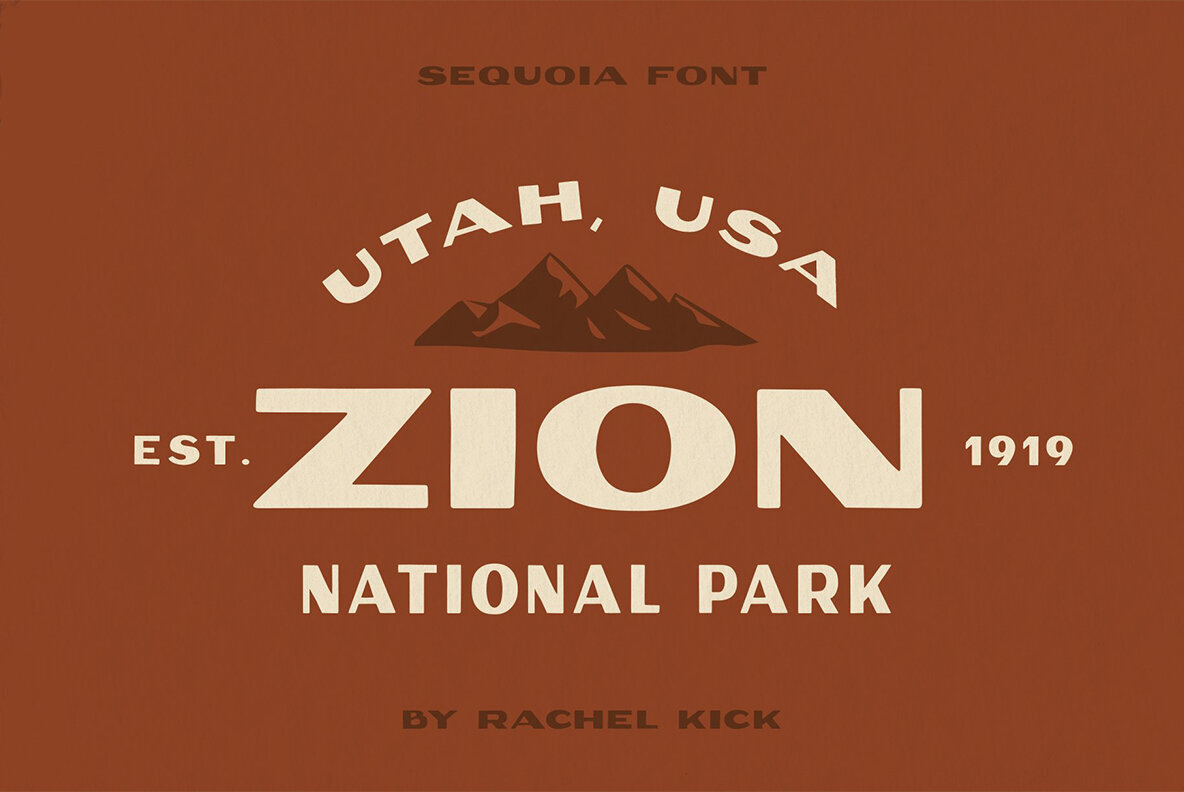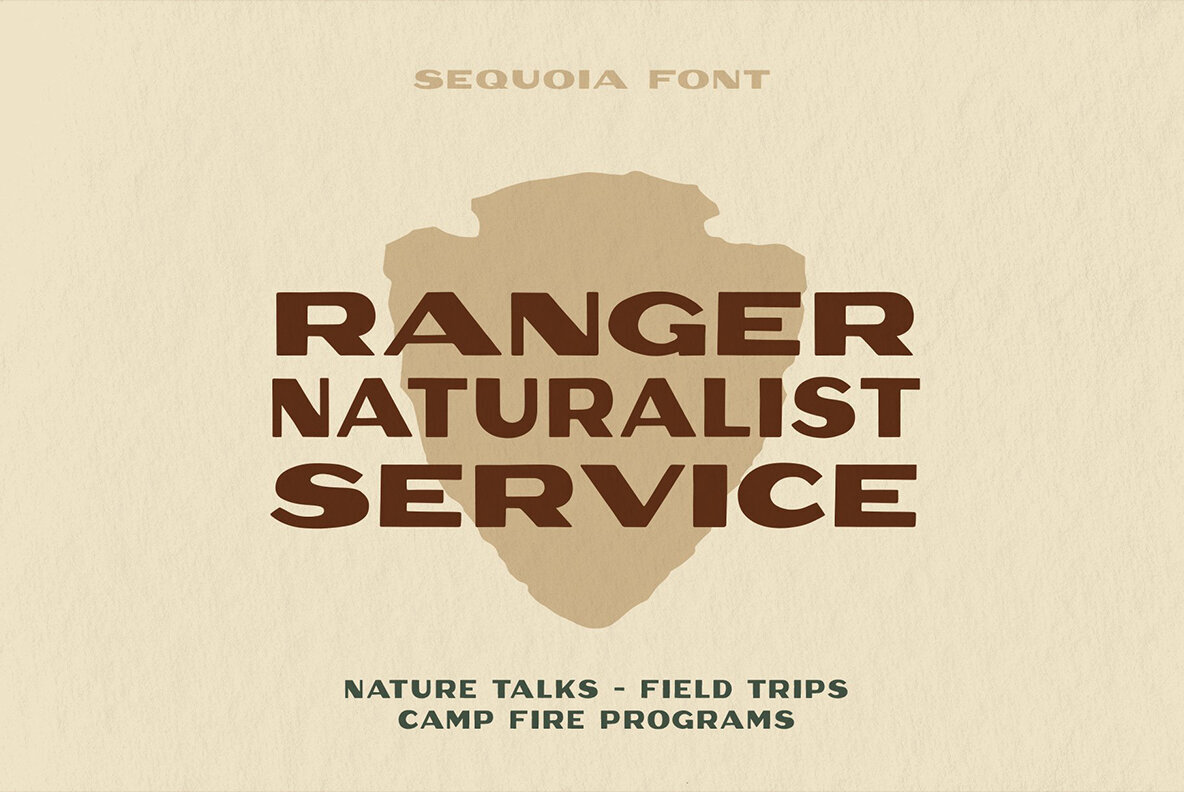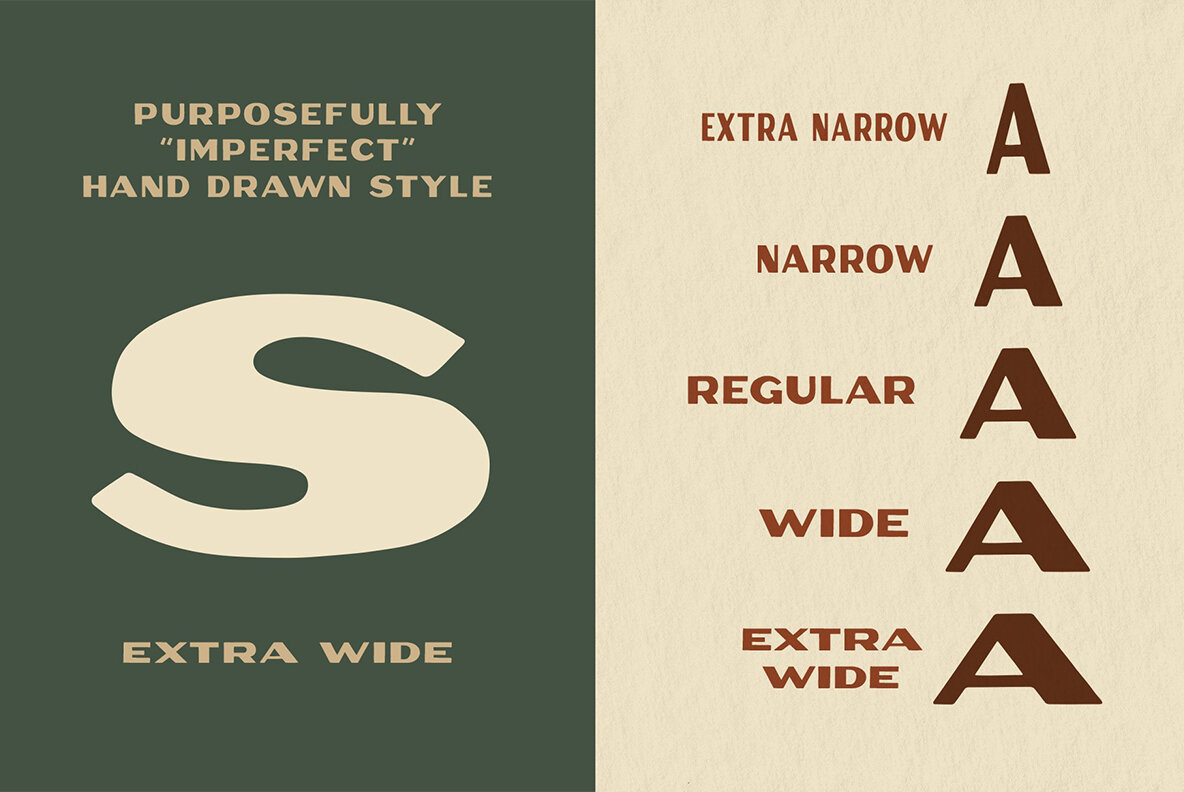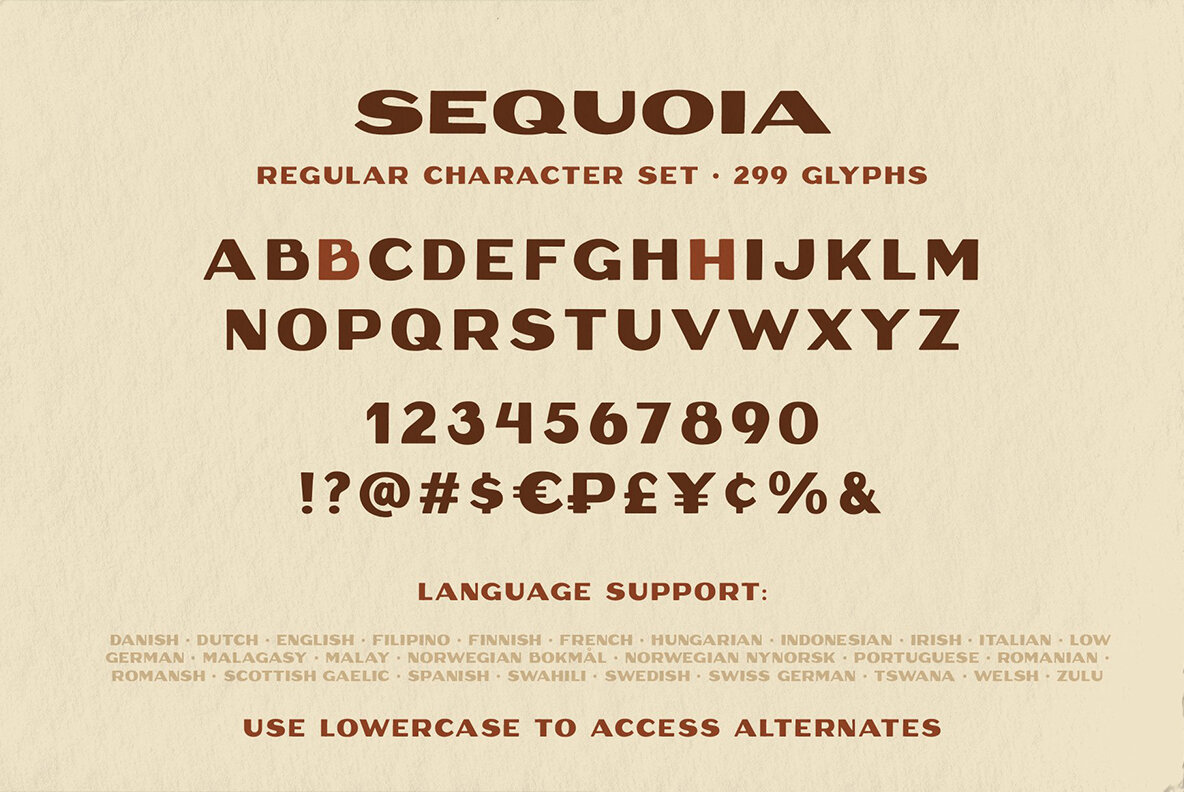
Sequoia Variable Font
Sequoia is a quirky, hand-drawn display typeface. It has a playful and organic feel based on the W.P.A. National Park posters created in the 1930s.
The variable font allows you to select any point between the "extra narrow" and "extra wide" styles to perfectly match the width you need. The original posters that this font was based on included lots of text that all matched but varied in width to fill up the allotted space. If you prefer just having set styles, the font also includes 5 different widths.